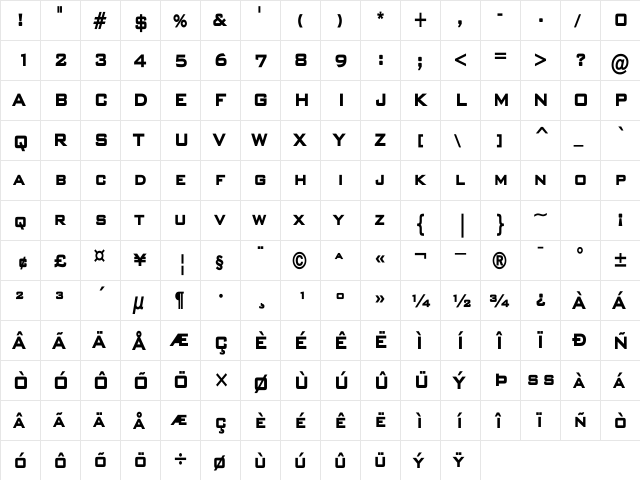
BankGothicCondensedLH Heavy Font Preview
Design Context for BankGothicCondensedLH Typeface
BankGothicCondensedLH takes a clean, functional approach — its unadorned letterforms prioritise legibility and work reliably across screen and print environments. The condensed width makes it efficient for tight spaces without sacrificing legibility.
Font Pairing: Works well alongside a characterful serif or display font that can carry the expressive load while BankGothicCondensedLH handles the functional copy.
Pro Tip: Use BankGothicCondensedLH tightly set in headlines and banners — its condensed proportions make it ideal for maximum impact in minimum horizontal space.